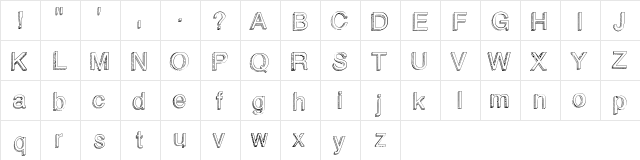
Complete BlockBasic Medium glyph index. Displaying only characters natively supported by BlockBasic Medium font.
BlockBasic is a composed and adaptable typeface that performs quietly and consistently across a wide range of design contexts.